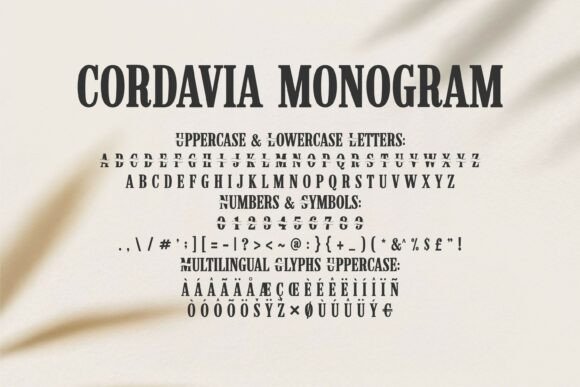
Cordavia Monogram Font
Cordavia Monogram is a remarkable serif display typeface. With a bold personality, it’s tailor-made for crafting stylish monograms, impactful logos, and riveting graphics.
Every uppercase letter of this font is adorned with a swash line centering itself delicately, lending an aesthetic and professional appeal. It’s an impeccable choice for fashion-centric apparel designs, evocative branding, attention-grabbing signage and artisanal Cricut crafts.